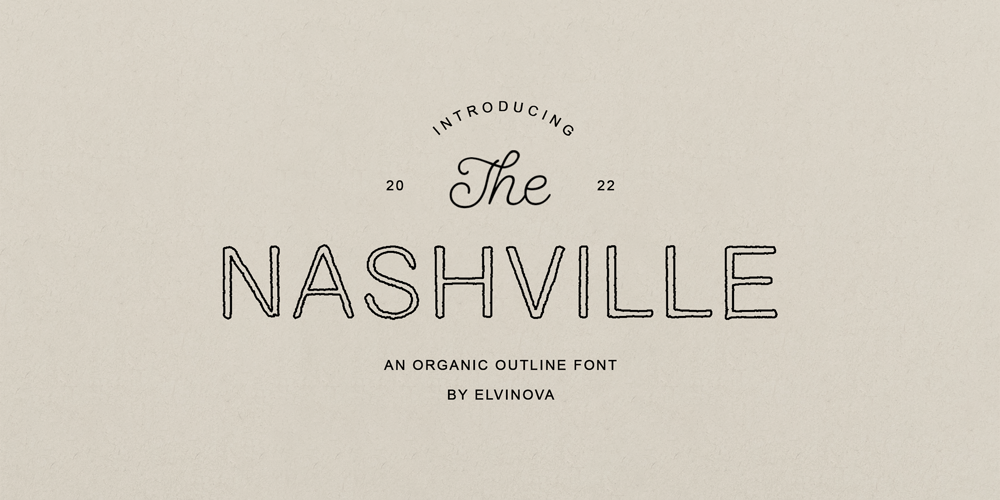
Nashville Outline Font Family was designed by Elvina Gafarova and published by Elvina Studio. Nashville Outline contains 2 styles and family package options. Introducing, the Nashville – an organic outline font. Upper/lowercase, numbers, punctuations; Outline, Bold Solid versions. Language support: English, German, French, Spanish, Italian, Danish, Finnish, Portuguese, Swedish, Norwegian, Dutch, Indonesian, Luxembourgish, Icelandic, Cornish, Hungarian, Filipino, Turkish.I hope you enjoy!